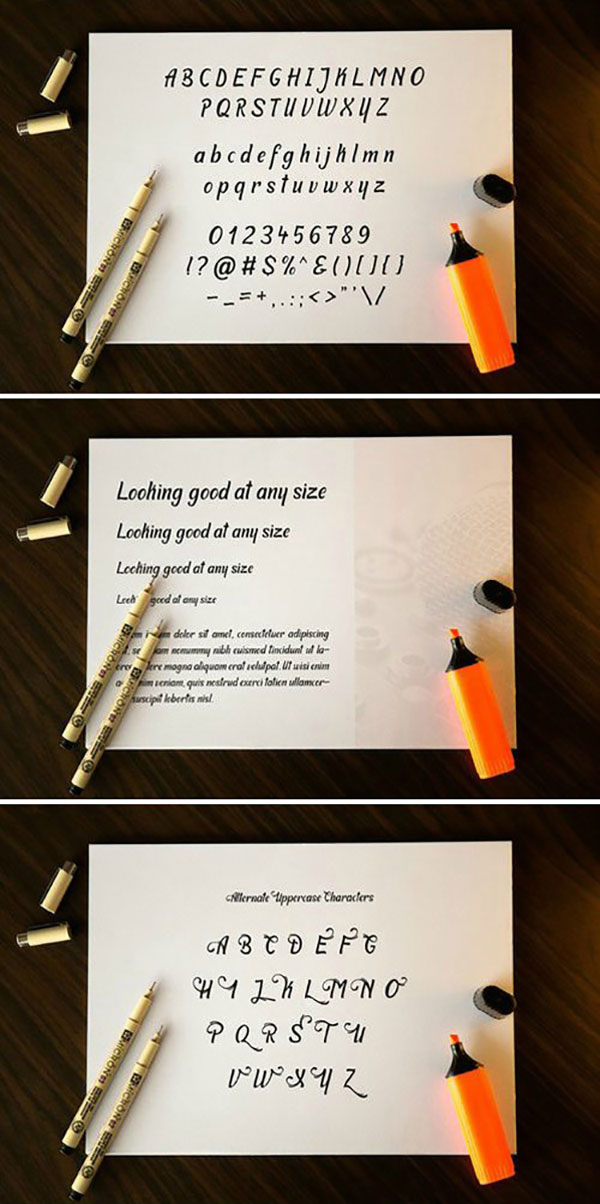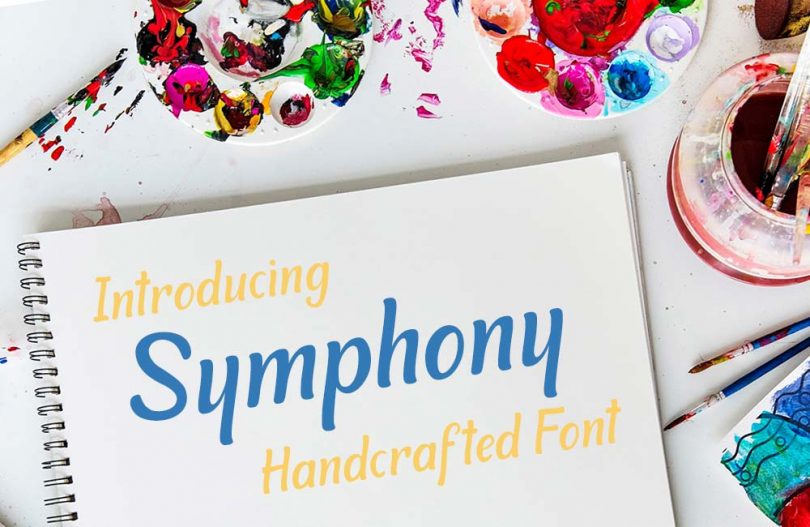
Symphony is an elegant handcrafted font that can make your designs attractive and looks good at any size. Beside regular font, it also includes an alternate upper characters with long scripted head and tails for you to make creative brochure covers for you. Grab it now, enjoy using it and feel free to share it. Also don’t forget to visit our design shop for more great graphic design resources. Subscribe to our YouTube Channel to get more amazing stuffs.